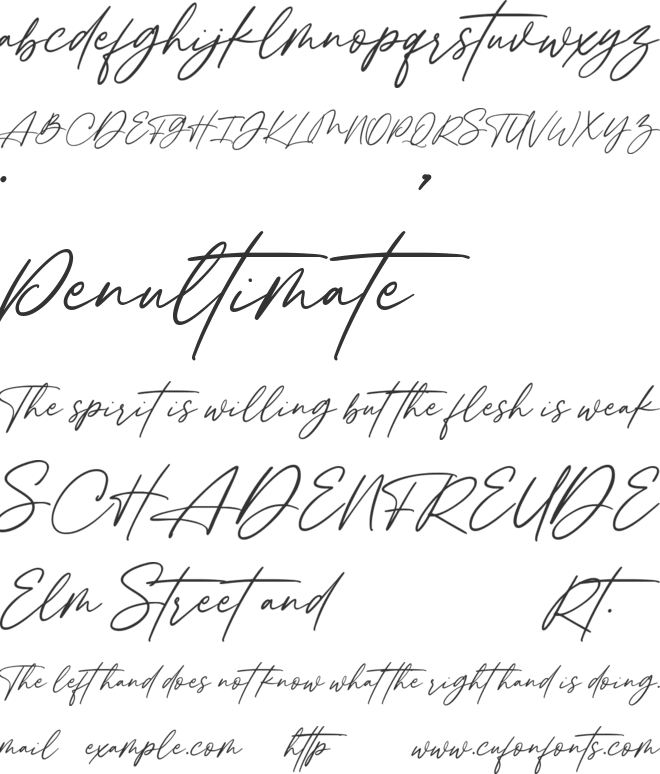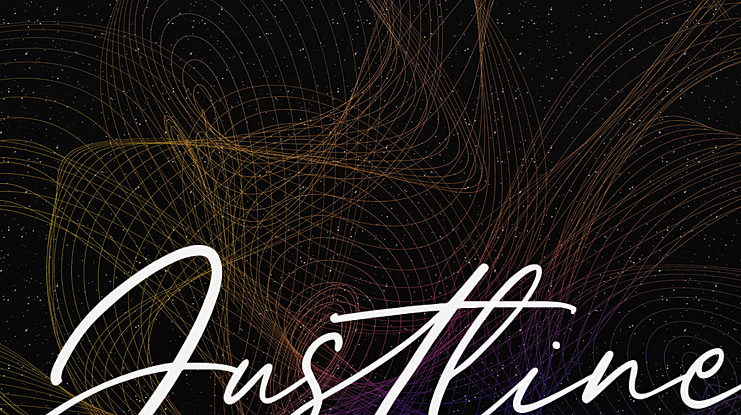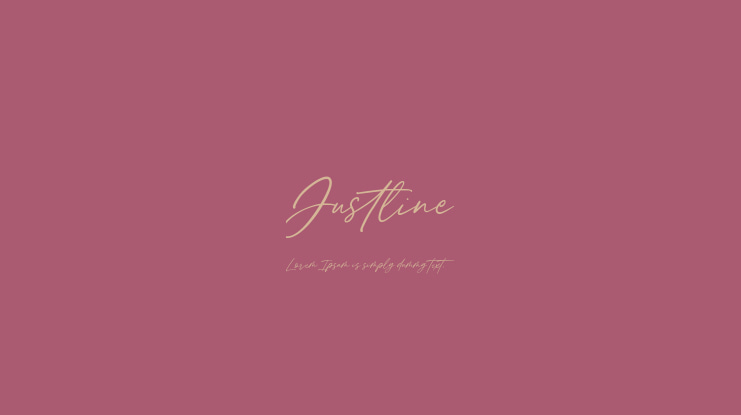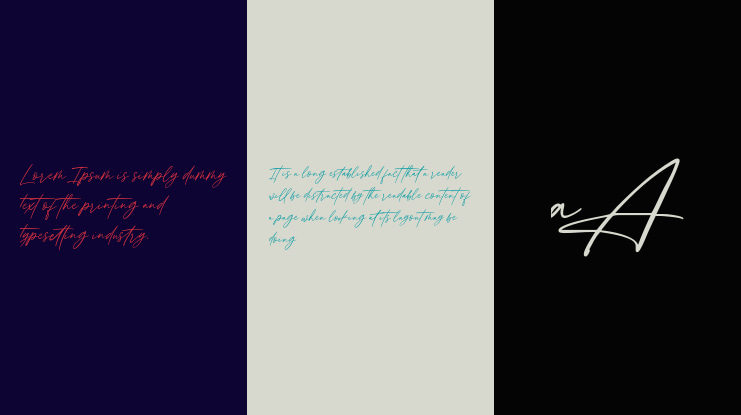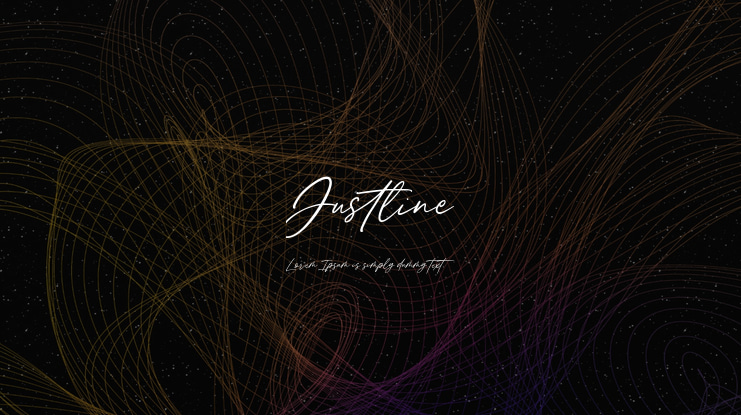
Justline Font
Justline Script Font is a modern and classy signature font that comes with beautiful ligatures and lovely alternates. It has a beautiful stroke, and it will suit various wedding invitations, fashion cards, and more.
– Uppercase, Lowercase, Numeral & Punctuation
– Alternate Letters & Ligature